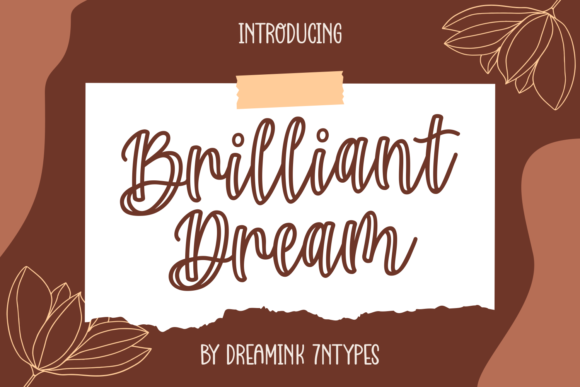
Step into a world of breathtaking beauty with Brilliant Dream Font, the epitome of elegance and grace. This exquisite handwritten font, crafted by the visionary designers at Dreamink (7ntypes), is a modern masterpiece that will elevate your projects to dizzying heights.
Indulge in the charm of its flowing strokes, meticulously rendered to mimic the natural artistry of human handwriting. Brilliant Dream Font exudes a timeless appeal, reminiscent of classic calligraphy, yet it remains undeniably contemporary and fresh. Witness the seamless blend of tradition and innovation, a testament to the font's versatility and adaptability.
Prepare to be captivated by the font's elegant curves, each stroke lovingly crafted to evoke a sense of sophistication and luxury. Let Brilliant Dream Font take you on a journey of creative expression, where your designs transcend the ordinary and enter the realm of the extraordinary.
Whether you're a seasoned design professional or a passionate hobbyist, Brilliant Dream Font will unleash your full creative potential. Its remarkable flexibility makes it the perfect choice for a wide range of projects, from stunning logos and captivating branding to heartfelt invitations and personalized stationery.
Embrace the power of Brilliant Dream Font and let your creativity soar. Witness the transformation as ordinary words morph into captivating expressions of art. Experience the joy of creating designs that resonate with elegance, charm, and a touch of timeless beauty.